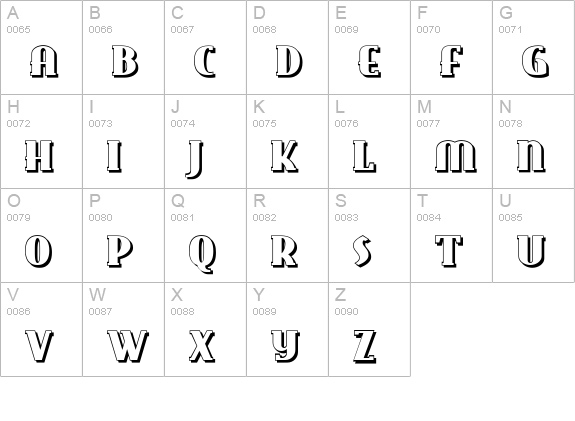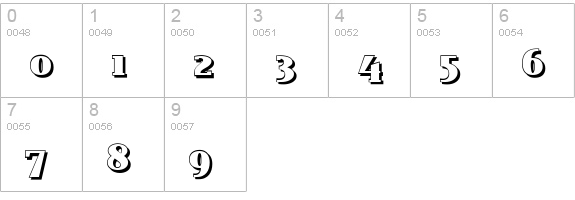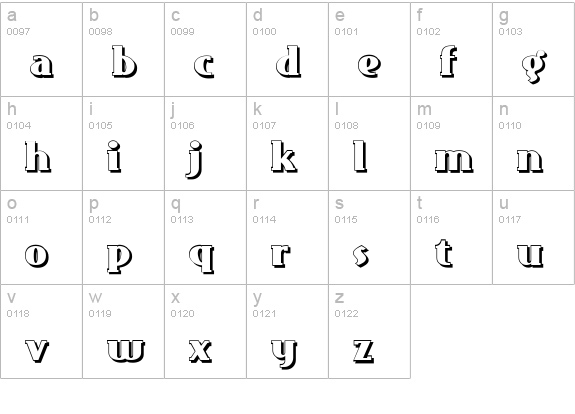
East Market Two NF Font Details
East Market Two NF font is a modern and versatile typeface perfect for a wide range of design projects. With its clean lines and stylish appearance, this font exudes elegance and sophistication. Whether you are working on a branding project, website design, or any other creative endeavor, East Market Two NF font is sure to make a bold statement. What sets this font apart is that it is available for free download at FontsMarket.com. This means that you can use this high-quality font in your projects without any cost, making it a valuable resource for both professional designers and hobbyists alike. Don't miss out on the opportunity to enhance your designs with the unique charm of East Market Two NF font – download it for free today!